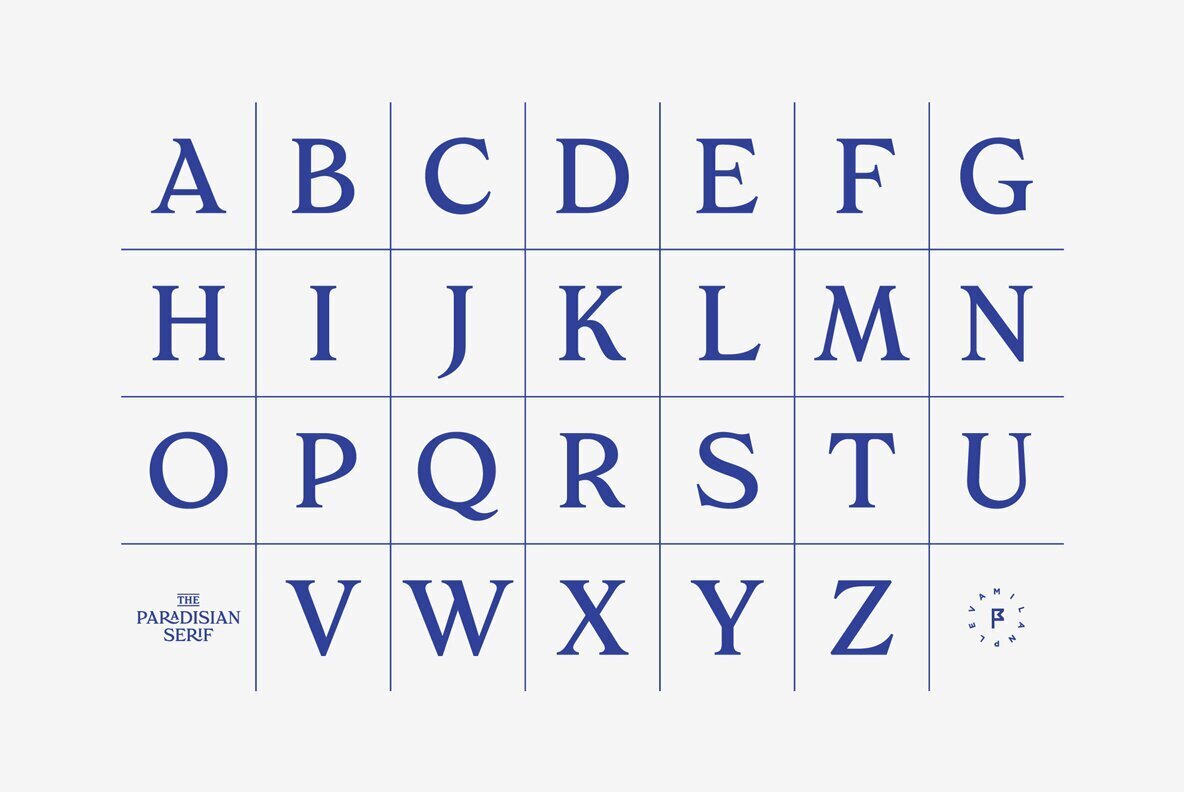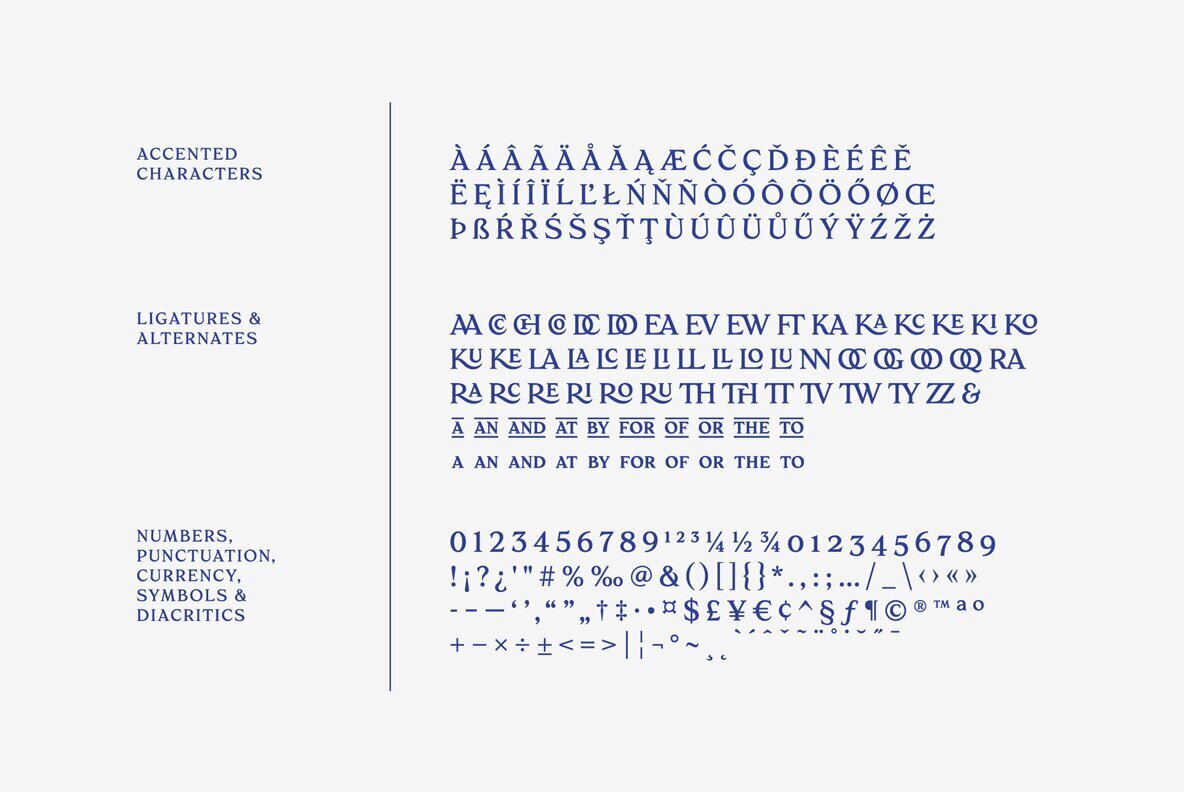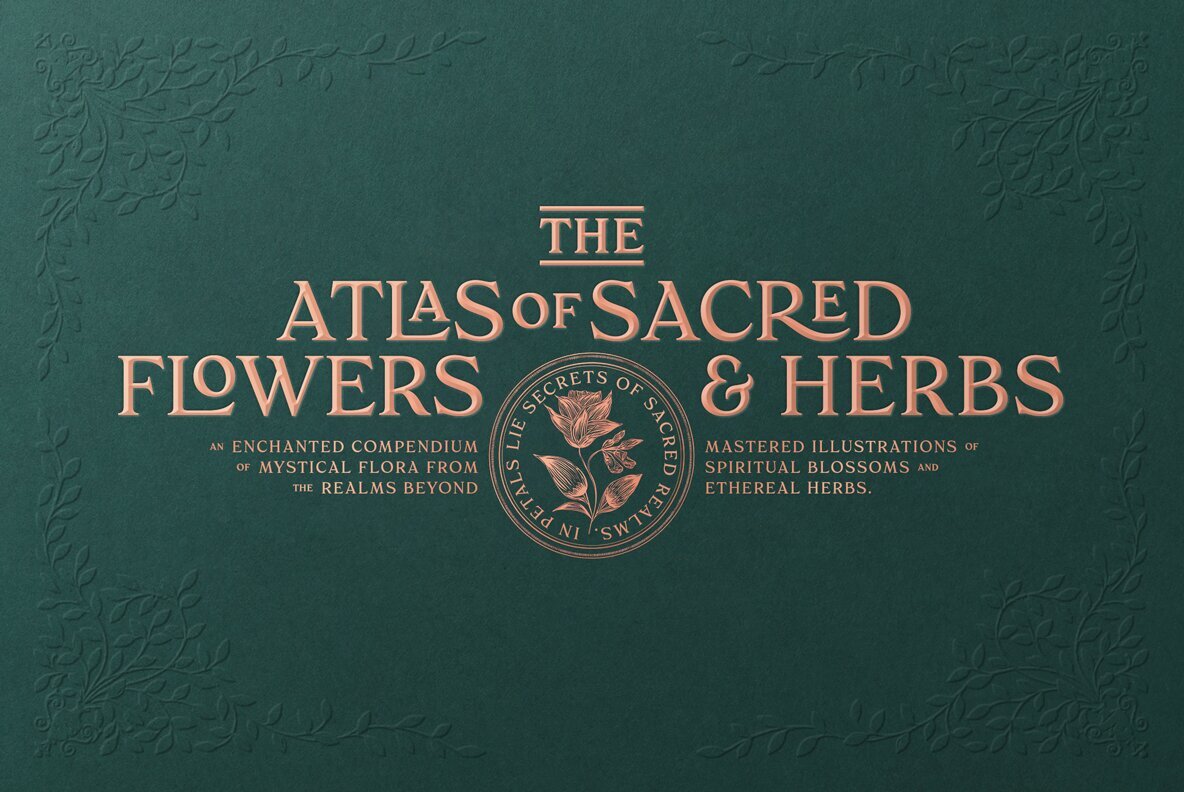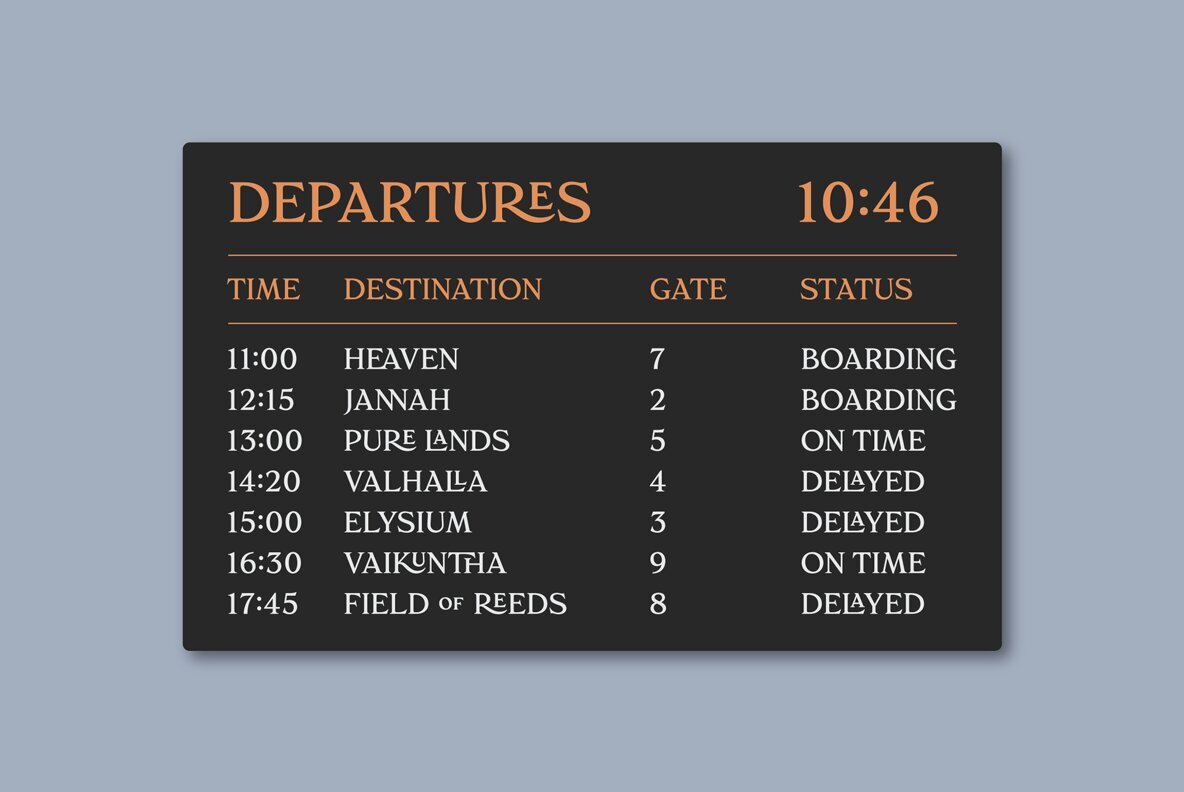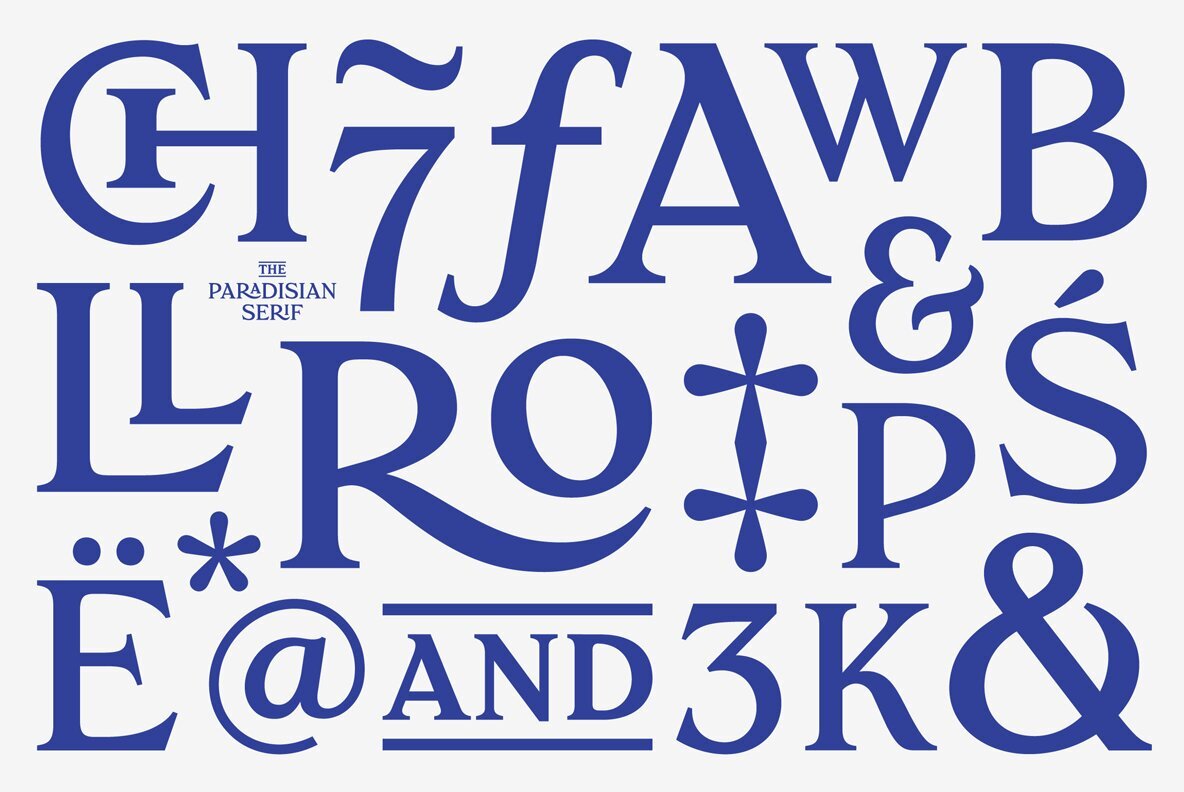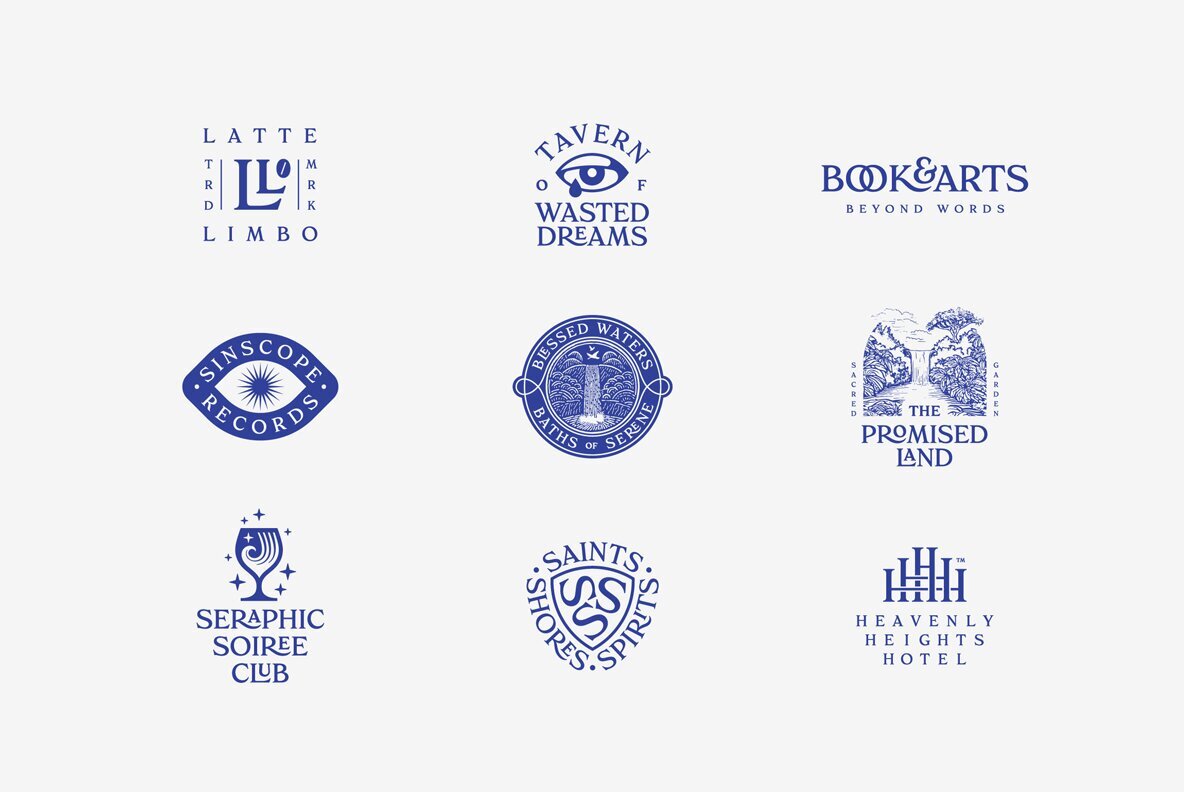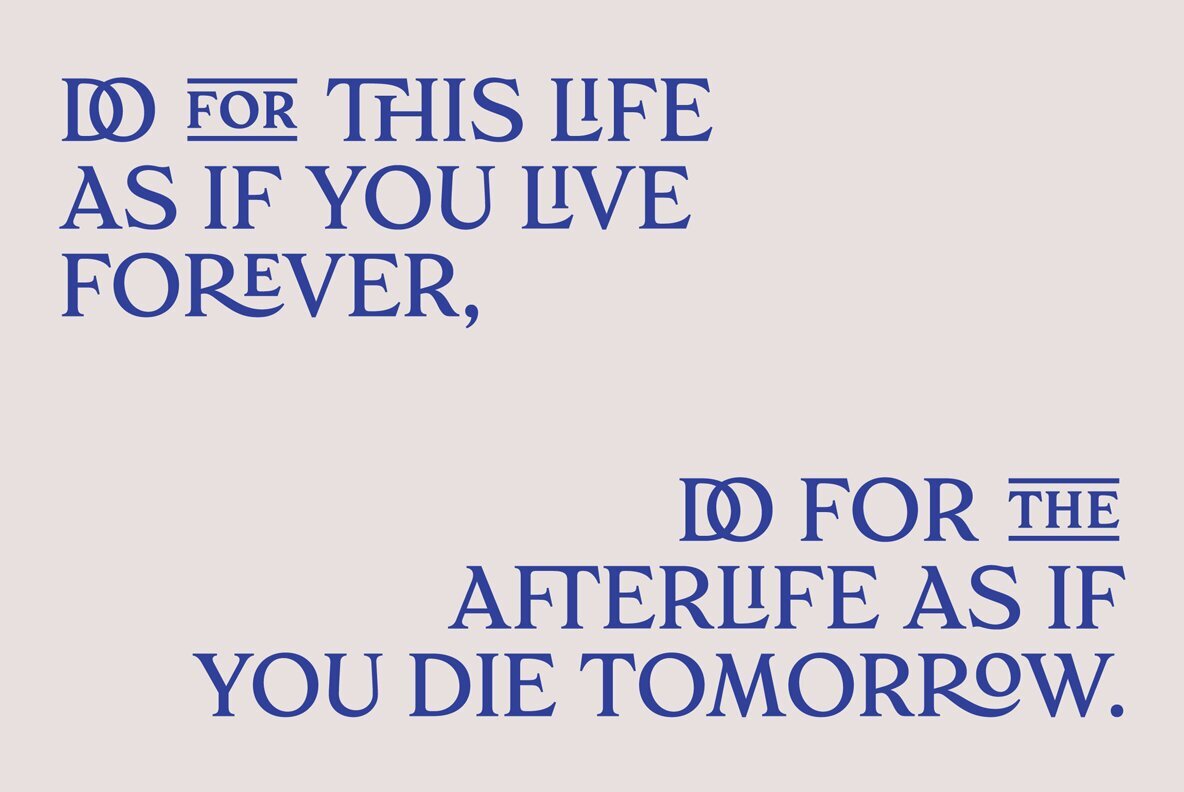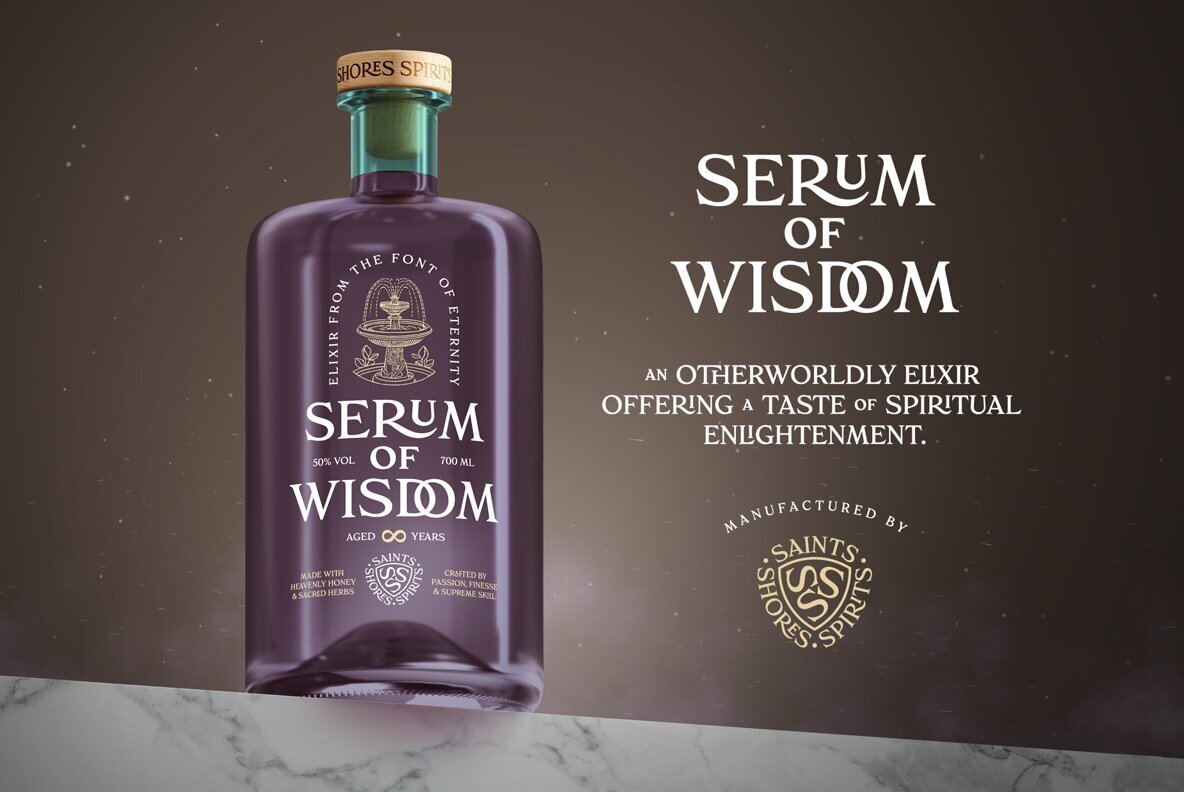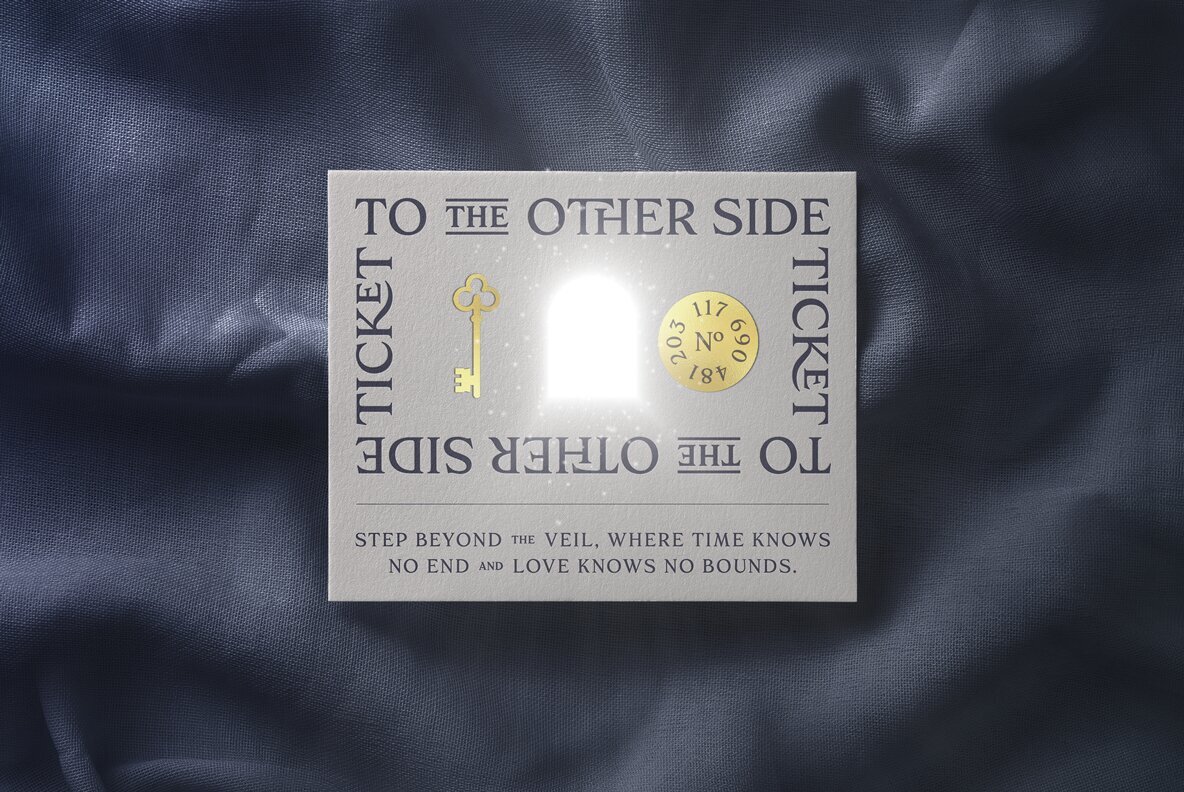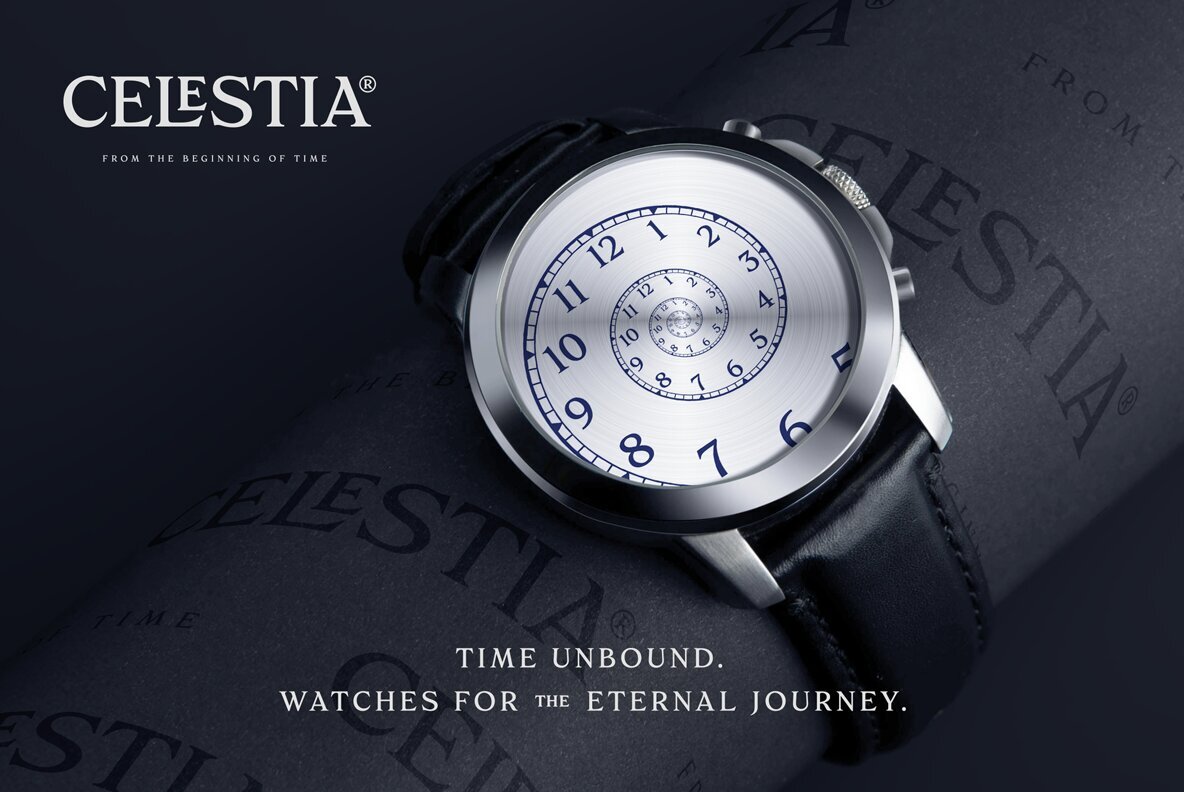
Paradisian Serif is an all-caps display font with elegant and well-balanced curves, perfect for logos, headlines, magazines, or even longer texts. It includes selected ligatures for an enhanced aesthetic appeal. This typeface combines timeless sophistication with contemporary design, making it ideal for a wide range of creative projects. Elevate your typography with the grace and beauty of Paradisian Serif.
FEATURES
• Basic latin alphabet A-Z
• 67 Ligatures & Alternates
• 56 Accented characters
• Numbers, Punctuation, Currency, Symbols, Math symbols & Diacritics
• Old style figures